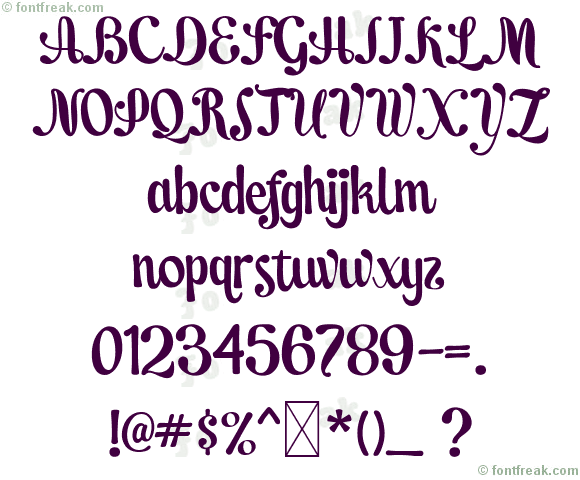
Lets Espresso
Lets Espresso by Burhan Afif is a delightful display font that evokes a sense of warmth and charm, making it an ideal choice for a variety of creative projects. This font features a unique handwritten style with playful curves and flourishes that give it a distinct personality. The stroke weight is moderate, allowing for a balance between legibility and artistic flair. The spacing is well-considered, ensuring that each letter flows seamlessly into the next, creating a cohesive look that is both inviting and engaging.
This font is particularly well-suited for use in wedding invitations, where its whimsical nature can enhance the romantic theme. Additionally, it works beautifully on restaurant menus, adding a touch of elegance to the dining experience. Its charming aesthetic makes it perfect for greeting cards or event flyers, where it can capture attention and convey a sense of joy. Graphic designers and small business owners will find Lets Espresso invaluable for branding materials, as it brings a friendly and approachable vibe to logos and promotional content.
The target audience for this font includes graphic designers looking for a fresh display option, small business owners seeking to create memorable branding, and content creators in need of a unique typeface to elevate their projects. With its freeware license, the Lets Espresso font free download offers accessibility for anyone looking to infuse their designs with a hint of creativity and personality.
What sets Lets Espresso apart is its ability to combine functionality with artistic expression. Whether used in print or digital formats, this font stands out through its playful character and versatility, making it a must-have in any designer's toolkit.